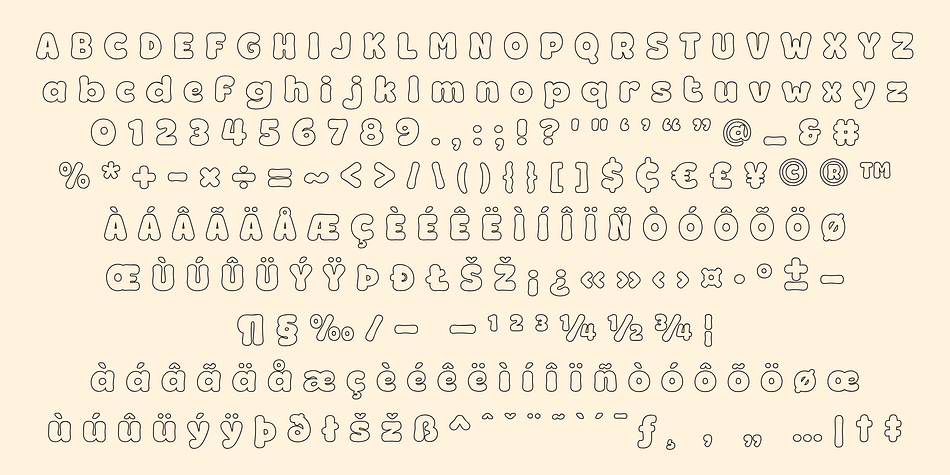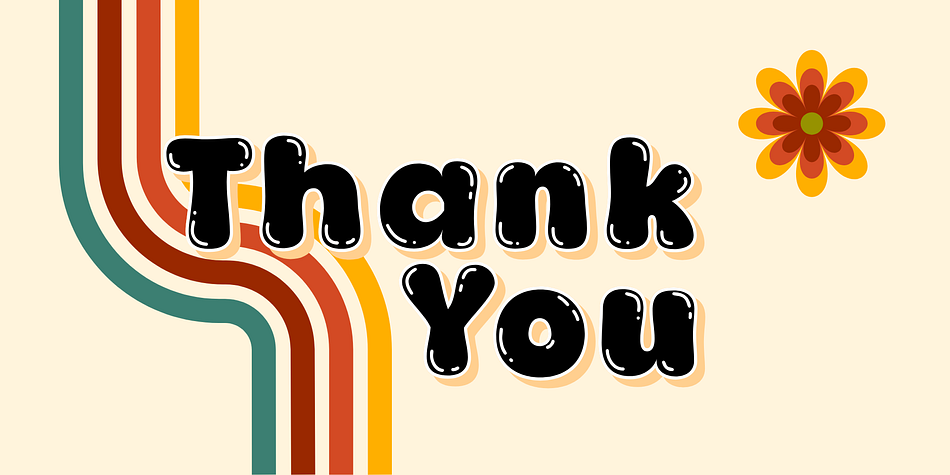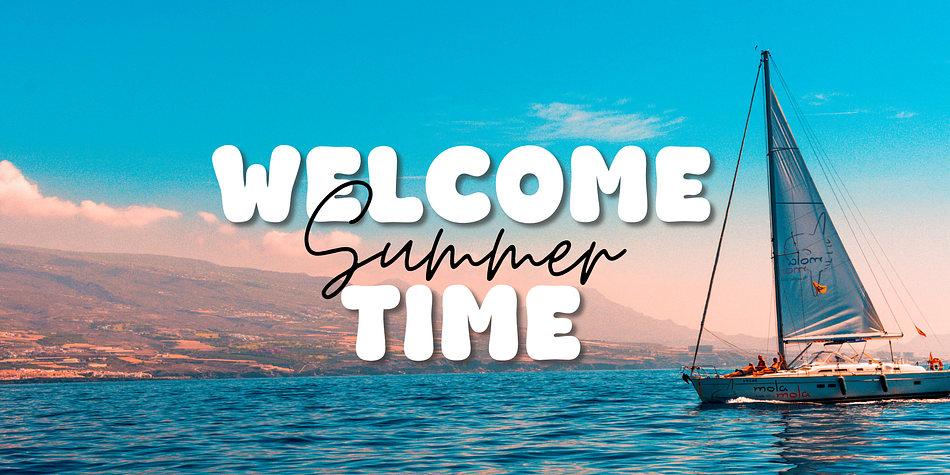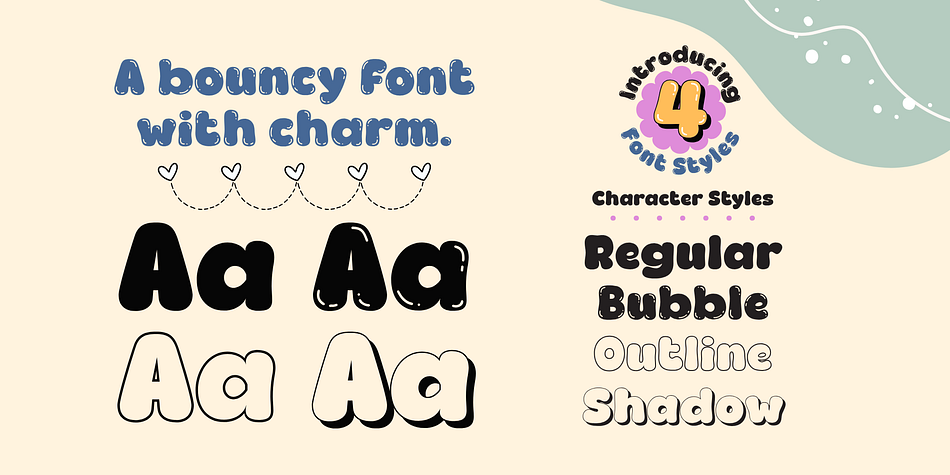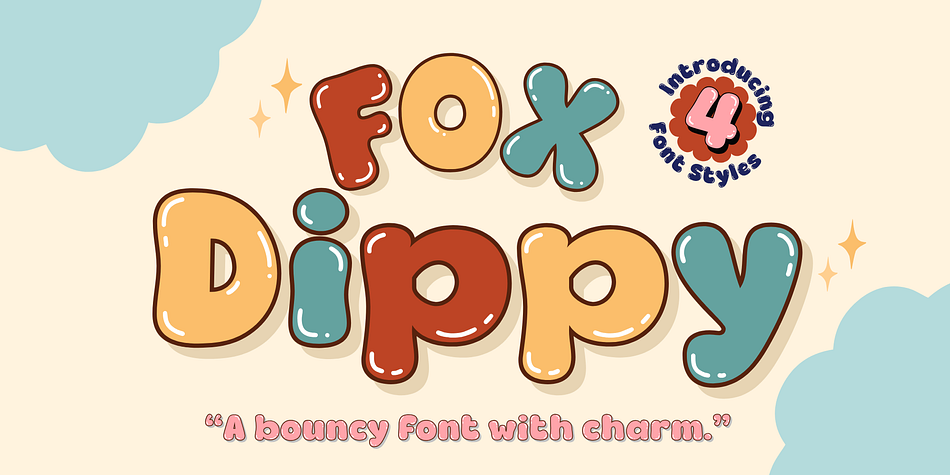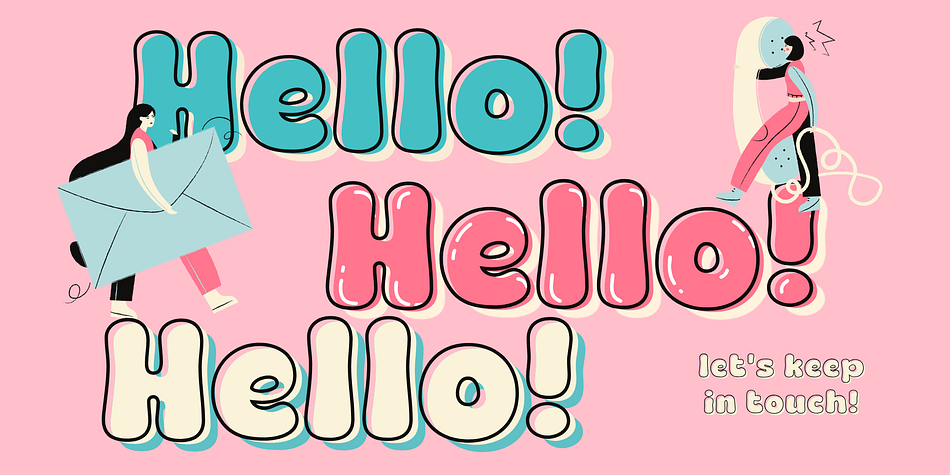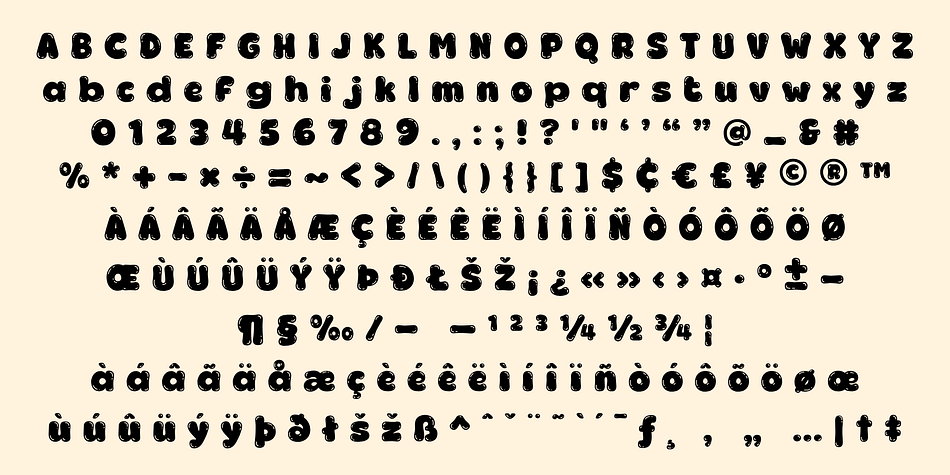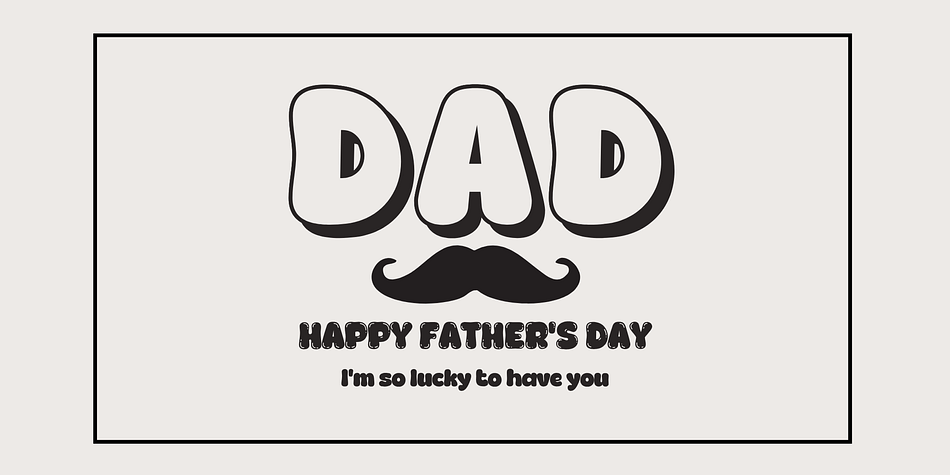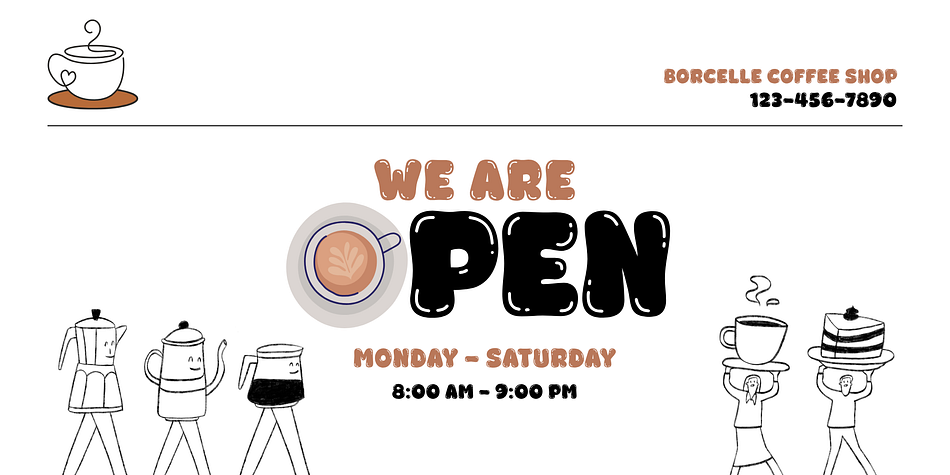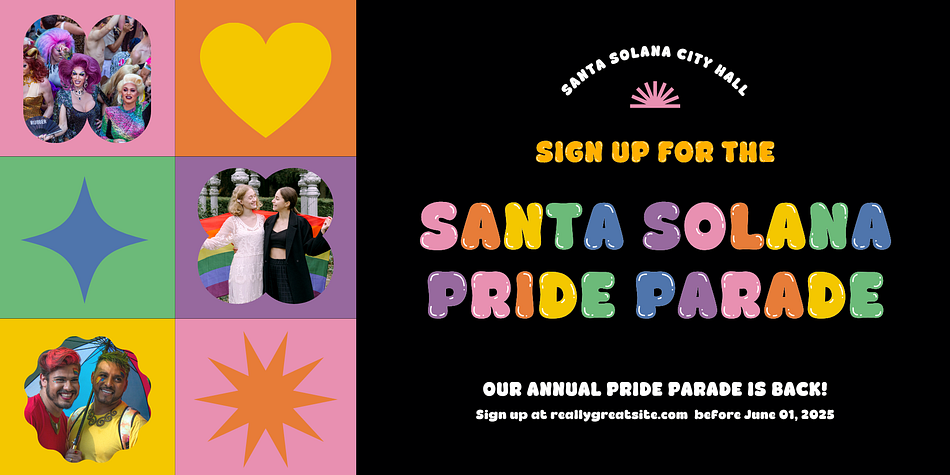
Fox Dippy
Designed by Rattana Rattanawan, Fox Dippy is a retro font family. This typeface has four styles and was published by Fox7.
ox Dippy – A Bouncy Font with Charm (4 Styles)
Say hello to Fox Dippy, a fun and bouncy display font that adds charm and playfulness to any project! With its soft curves, quirky rhythm, and delightful bubbly vibe, Fox Dippy is perfect for everything from kids’ designs to packaging, quotes, invitations, and social media graphics.
Fox Dippy comes with 4 unique styles to mix and match for even more creative freedom:
❀ Regular – Clean and bold, with that friendly bounce.
❀ Bubble – Glossy and playful with shiny highlights.
❀ Outline – Lightweight and cute, perfect for layering.
❀ Shadow – Fun and dimensional, adds depth with a soft shadow.
Each style works beautifully on its own or together for layered, colorful effects.! Perfect for Children’s books, kawaii graphics, party invitations, t-shirt designs, logos, YouTube thumbnails, and more!